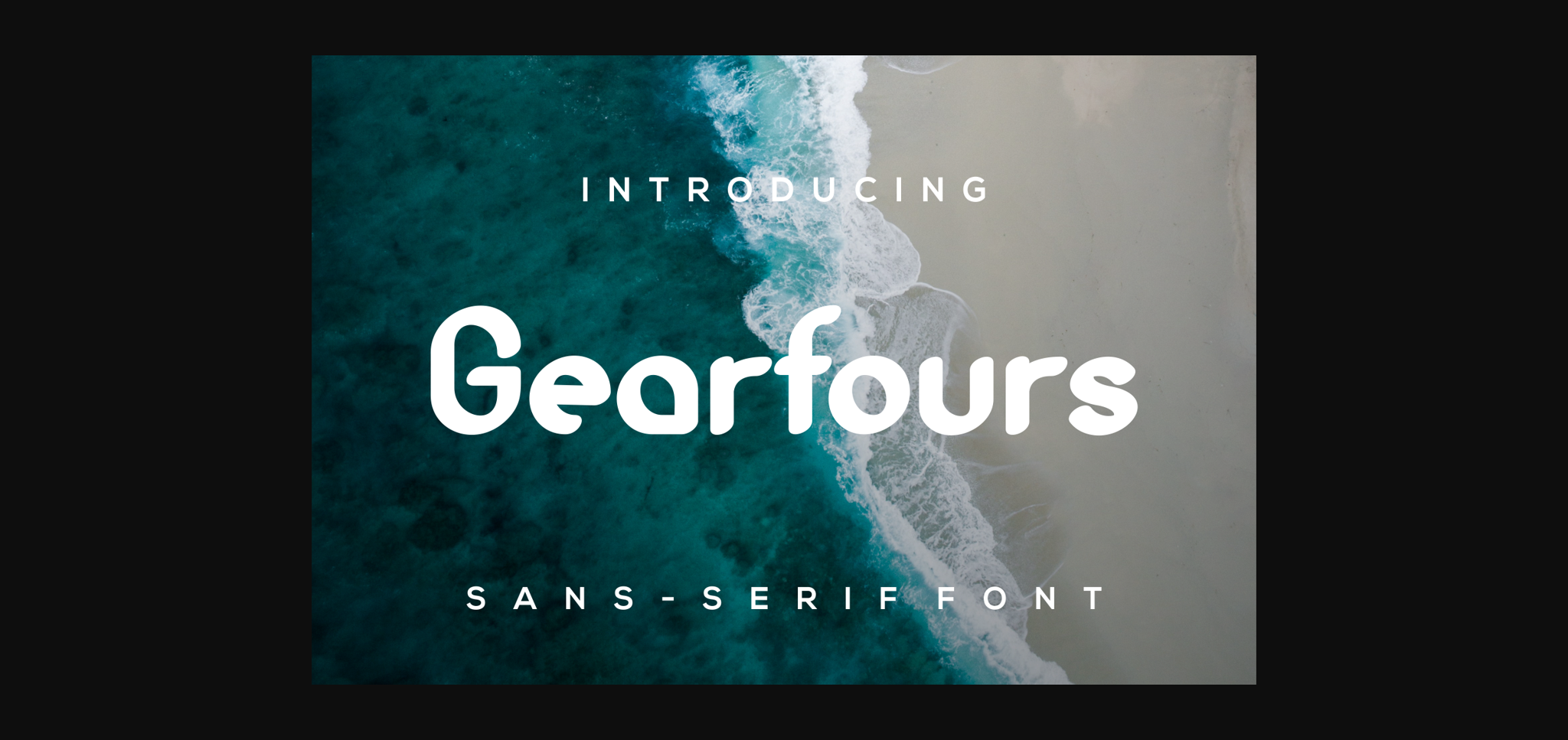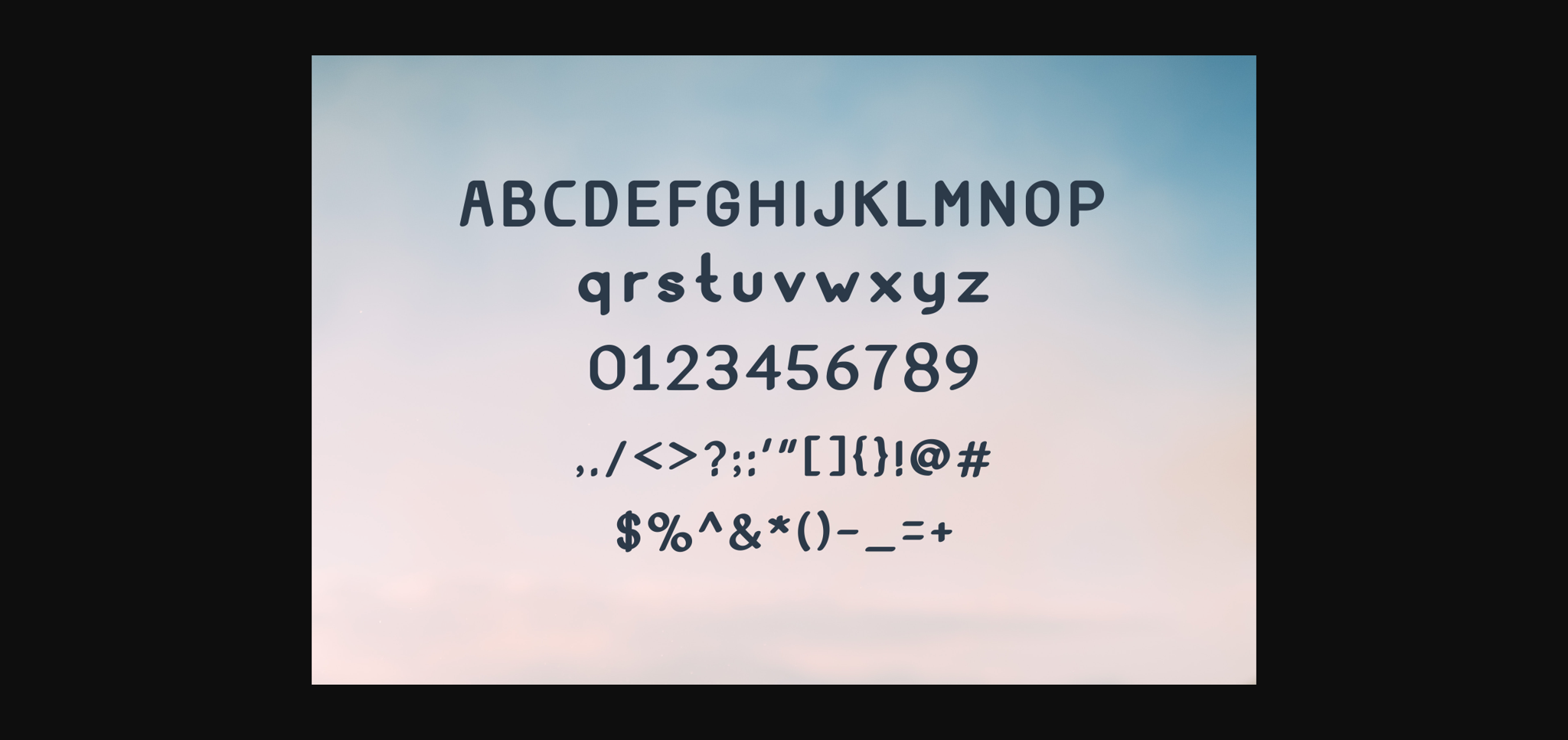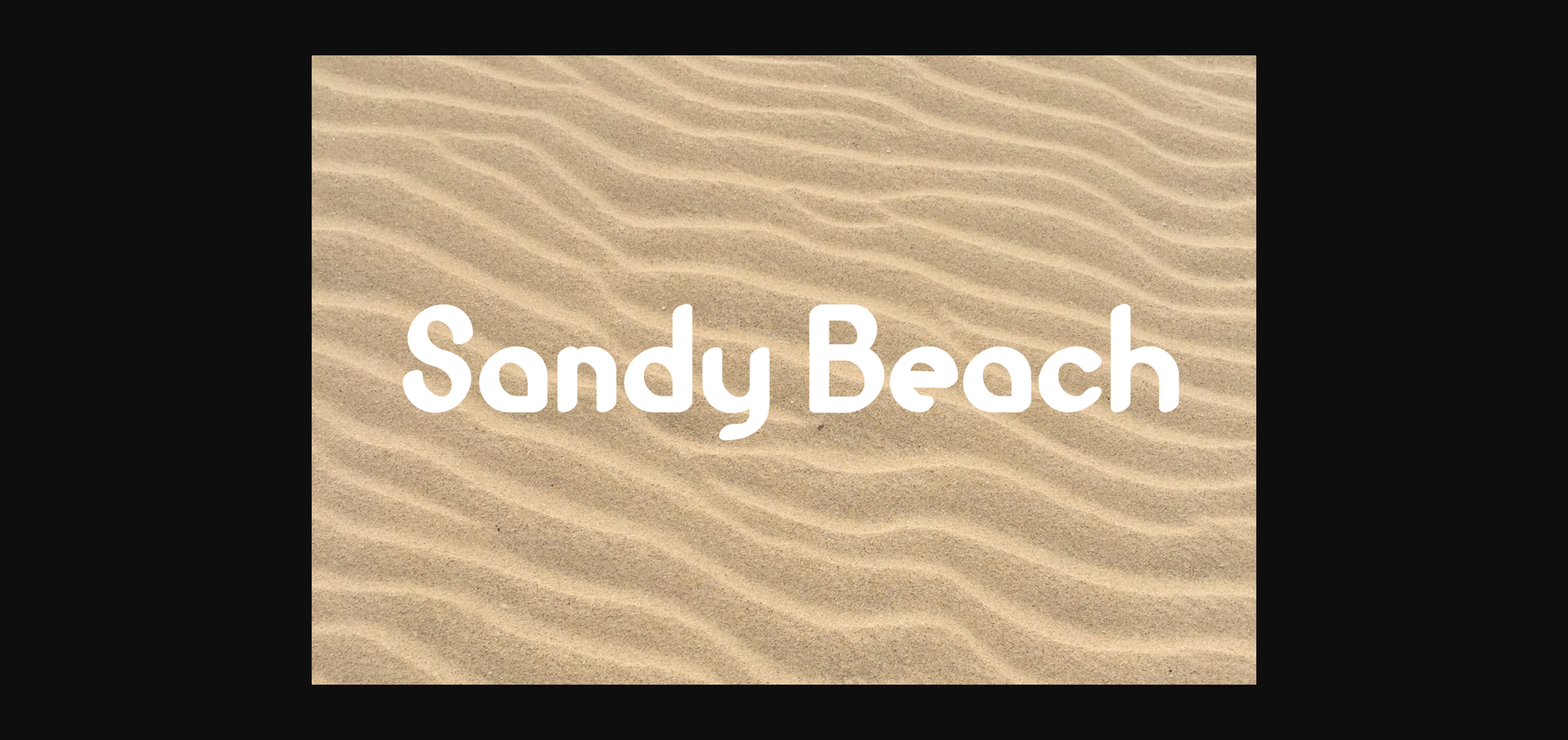
Sans Serif Fonts Gearfours Font 0 150 FacebookTwitterPinterestWhatsApp 1 of 5 ... Gearfours Font Poster 2... Gearfours Font Poster 3... Gearfours Font Poster 4... Gearfours Font Poster 5... About Gearfours Font Gearfours is a cool and unique sans serif font. This font is neatly crafted and highly detailed. Whatever the topic, this font will be a wonderful asset to your font library, as it has the potential to enhance any creation. DOWNLOAD NOW